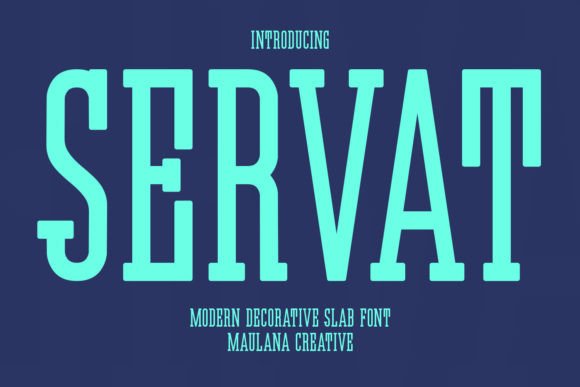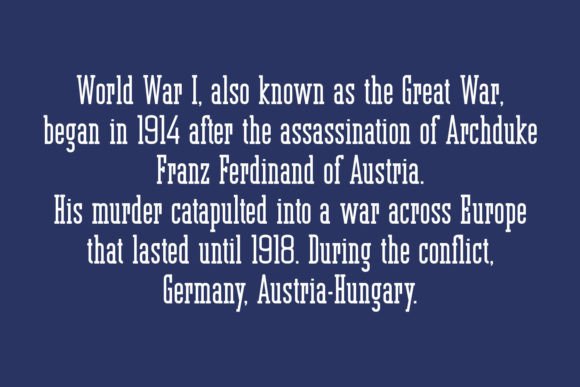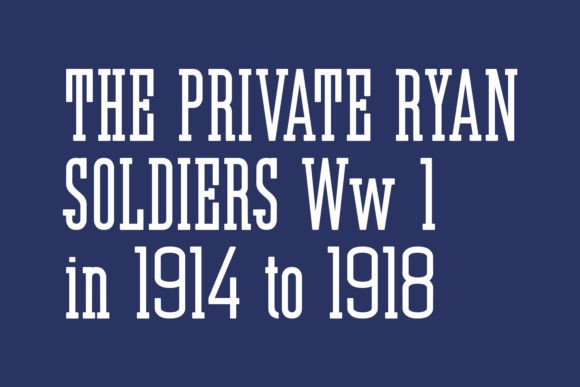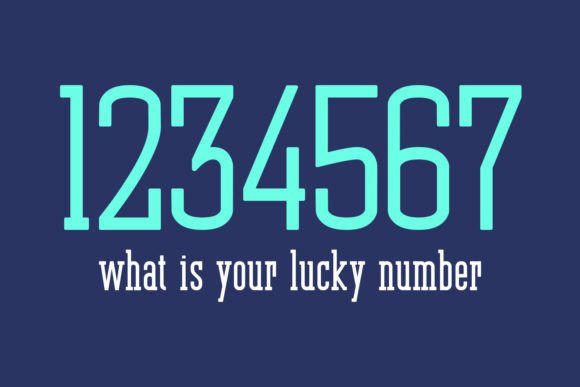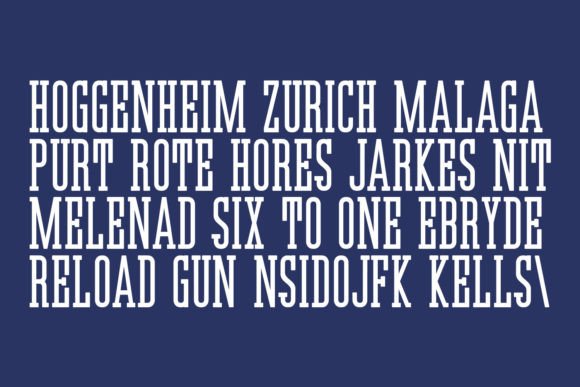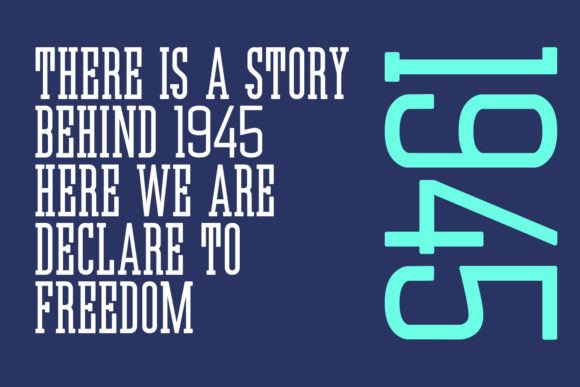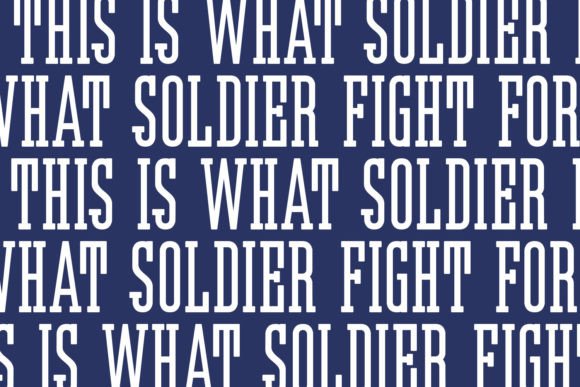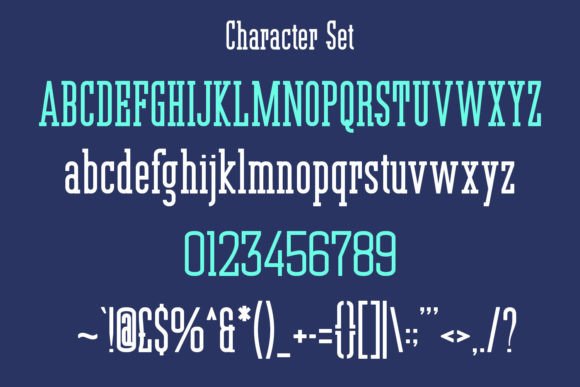
Servat
Servat: A Retro Semi-Slab Serif Font
Servat is a retro semi-slab serif font known for its giant letters and ability to craft big titles that can be seen from far away[3]. This versatile typeface serves as an incredible asset to any font library, capable of elevating various creative projects.
Key Features of Servat
• Retro Design: Offers vintage-inspired letterforms.
• Semi-Slab Style: Features distinctive serif characteristics.
• Large Scale: Perfect for creating visible titles[3].
• Versatile Appeal: Enhances various creative projects.
When using Servat in your designs, keep these tips in mind:
• Try it for large-scale headlines to maximize visibility[3].
• Use its retro character to enhance vintage-inspired projects.
• Let its versatility work across different themes.
• Take advantage of its ability to elevate designs.
To sum up, Servat is an excellent choice for designers seeking a retro semi-slab serif font with strong visual impact. Its versatility makes it perfect for enhancing any design project. Whether you’re creating large-scale titles or developing creative projects, Servat offers the perfect blend of retro charm and modern utility.
Furthermore, Servat’s distinctive design allows it to shine in contexts where both visibility and style are key. The font can elevate your projects with its unique character while maintaining the ability to be seen from a distance[3].
In conclusion, Servat truly captures the essence of retro design in semi-slab serif typography. Its ability to enhance various applications shows how well it can serve creative needs. Therefore, for those wanting to add a touch of vintage sophistication to their work, Servat can transform any design with its distinctive style. Ultimately, it’s perfect for designers aiming to make a bold, retro impact across creative projects.